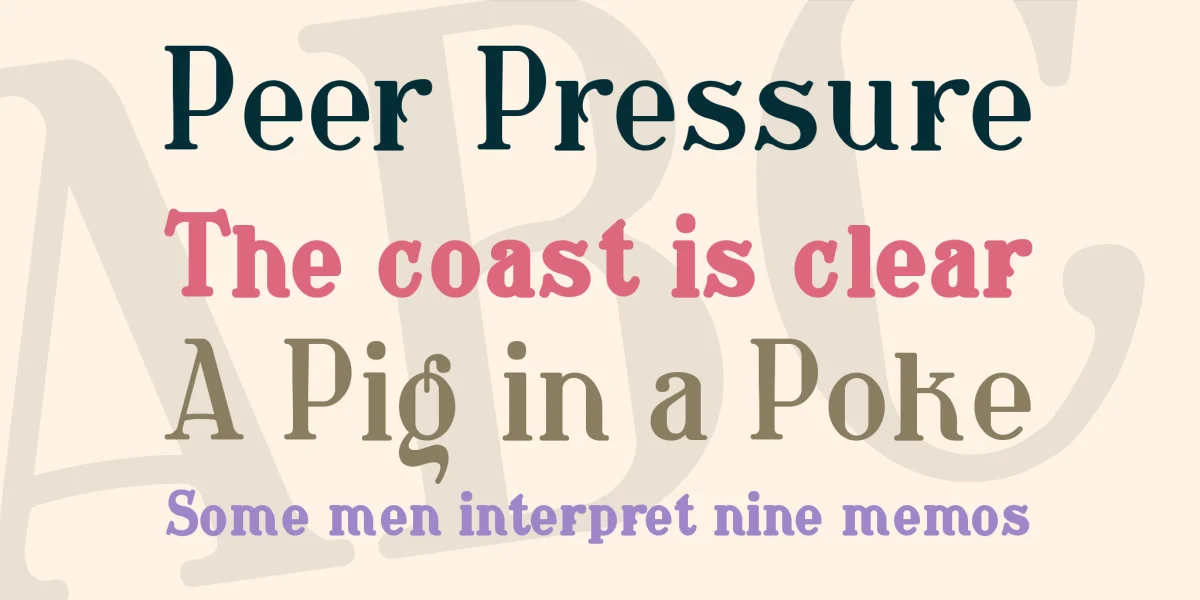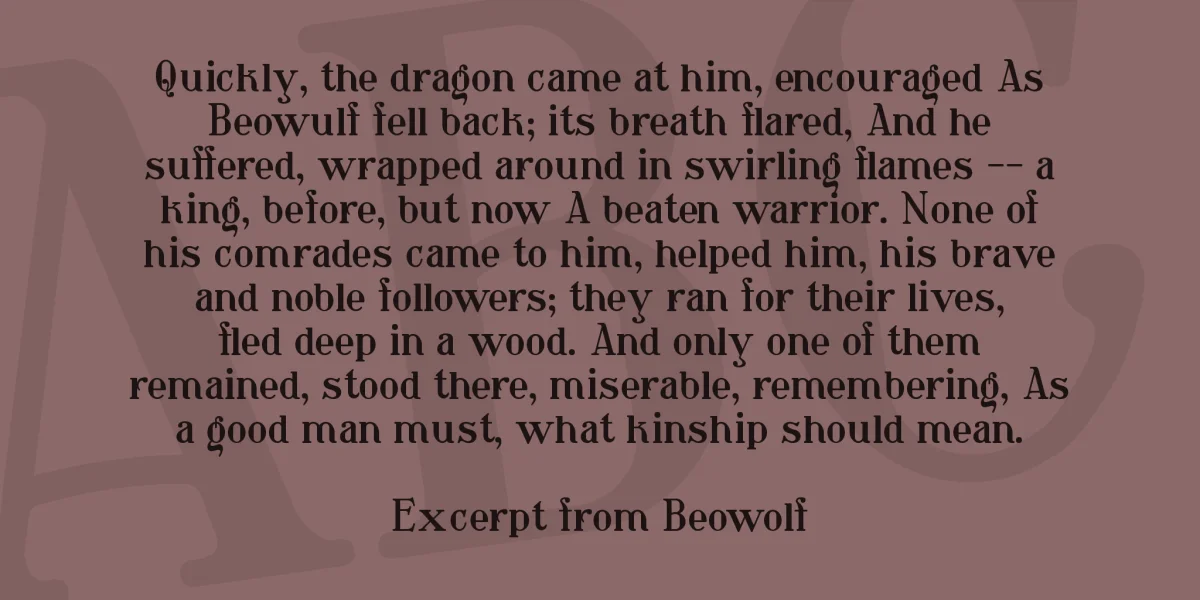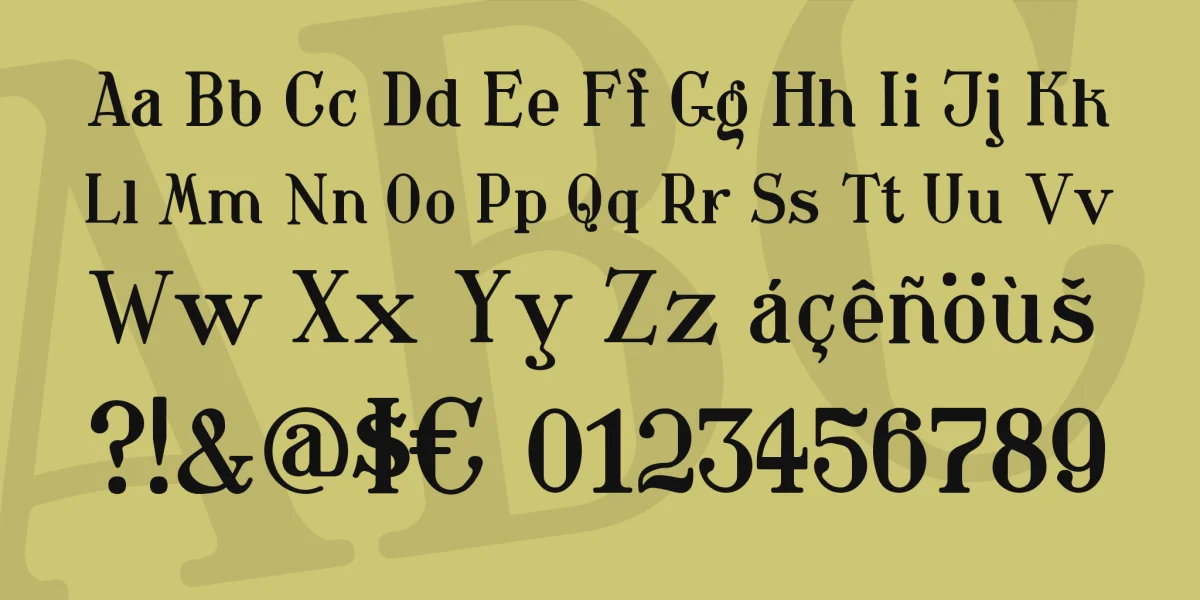
Late 19th and early 20th Century to a modern housing estate at that time was a wash-house, where the women washed the clothes of the family. Here was the great-fired boiler wash, often a shortage for wringing the laundry and often permanently brick basins in which soaked the clothes in soda lye or was rubbed clean with soap and washboard. All this, of course, also left his mark and so it is no wonder that had to be called in laundry rooms for cleanliness. Such a plate I used as a template for writing this ...